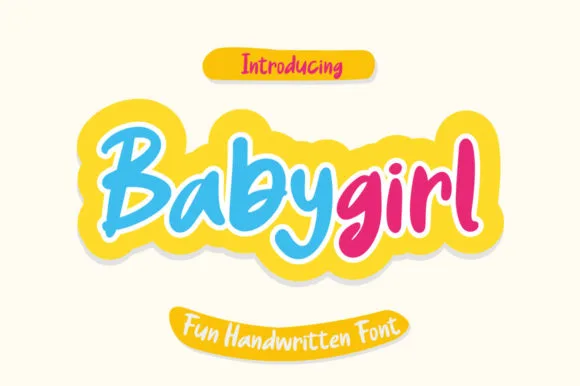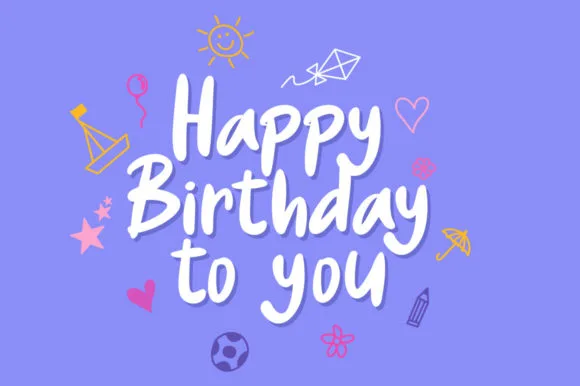
Babygirl Font
About Babygirl Font
Babygirl is a cool, friendly and organic handwritten font. No matter the topic, this font will be an incredibly asset to your fonts’ library, as it has the potential to elevate any creation.